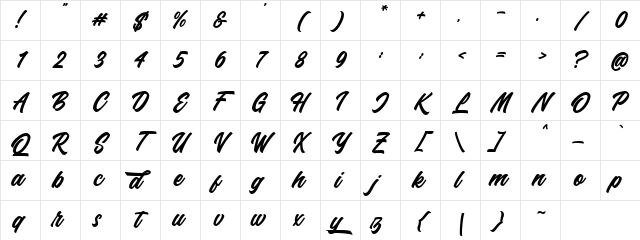
Haydes is a composed and adaptable typeface that performs quietly and consistently across a wide range of design contexts.
Pro Tip: Use Haydes in both headline and body roles to test its range before committing to a single application.